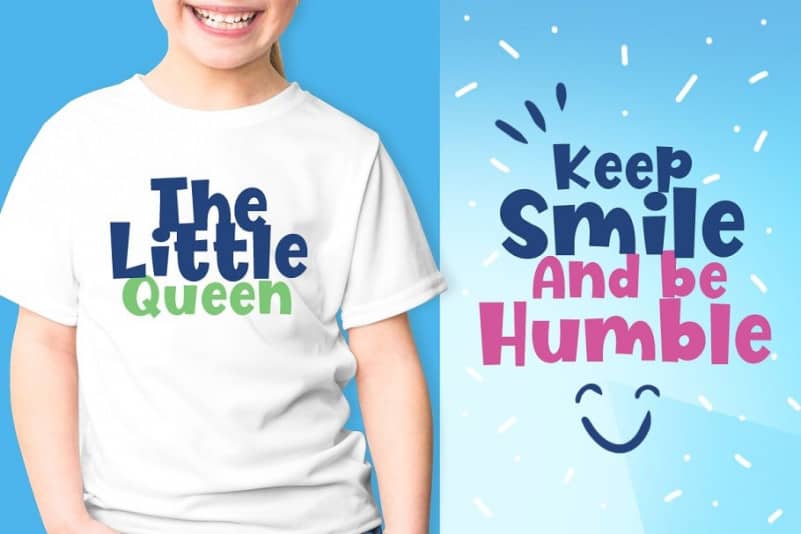
Fresh Coconut Display Font
Fresh Coconut Display Font comes with full set of uppercase and lowercase letters, ligatures,multilingual symbols, numerals and punctuation. Made from font designer named khurasan. A fun display typeface with cheerful theme for your fun project. Fresh Coconut support multilanguage. suitable for logo, branding, greeting card, poster and any design that you create.